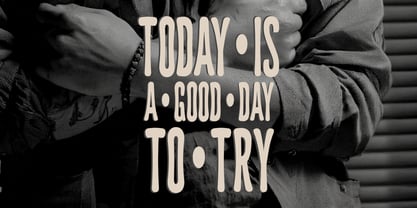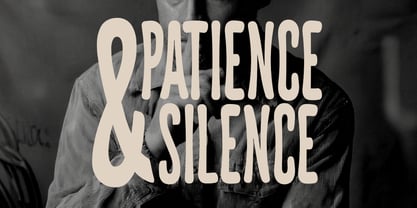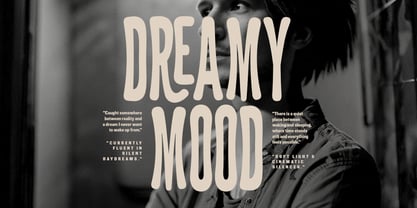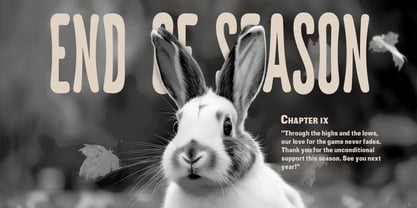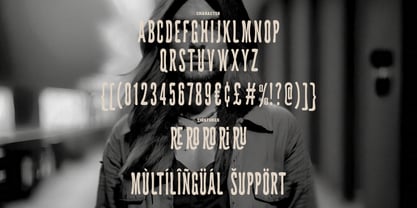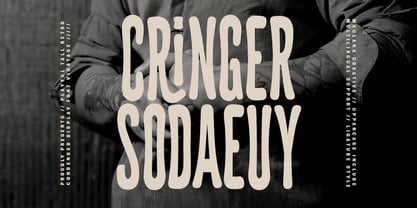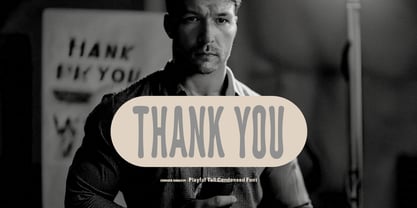
Cringer Sodaeuy
von Maulana Creative
Die Schriftfamilie Cringer Sodaeuy wurde von Gilang Maulana entworfen und von Maulana Creative veröffentlicht. Cringer Sodaeuy enthält 1 Stile. Mehr über diese Familie
Cringer Sodaeuy is a unique display font that beautifully combines a tall, condensed structure with a playful, hand-drawn aesthetic. Designed with soft, rounded edges and charmingly irregular forms, this typeface brings an organic, whimsical energy to any creative project. It features full uppercase characters, numbers, essential punctuation, special ligatures, and multilingual support. This versatility makes it an exceptional choice for eye-catching headlines, poster designs, book covers, social media graphics, branding, and editorial layouts that require a distinct, modern-vintage character.
Designer: Gilang Maulana
Foundry: Maulana Creative